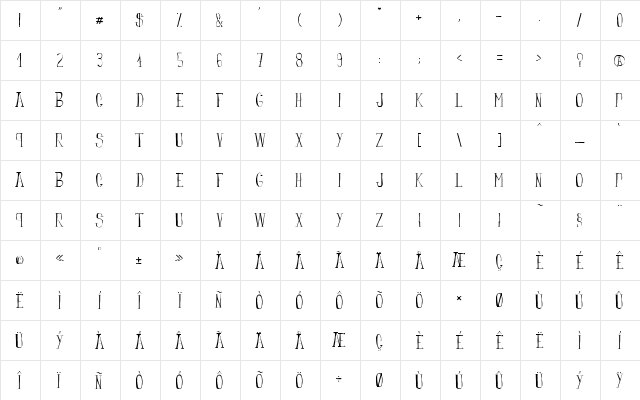
fanfarone Font Preview
fanfarone fanfarone
fanfarone Font Details
| Style | fanfarone |
| Foundry | Ewen Prigent |
| Designer | Ewen Prigent |
Design Context for fanfarone Typeface
fanfarone is a composed and adaptable typeface that performs quietly and consistently across a wide range of design contexts.